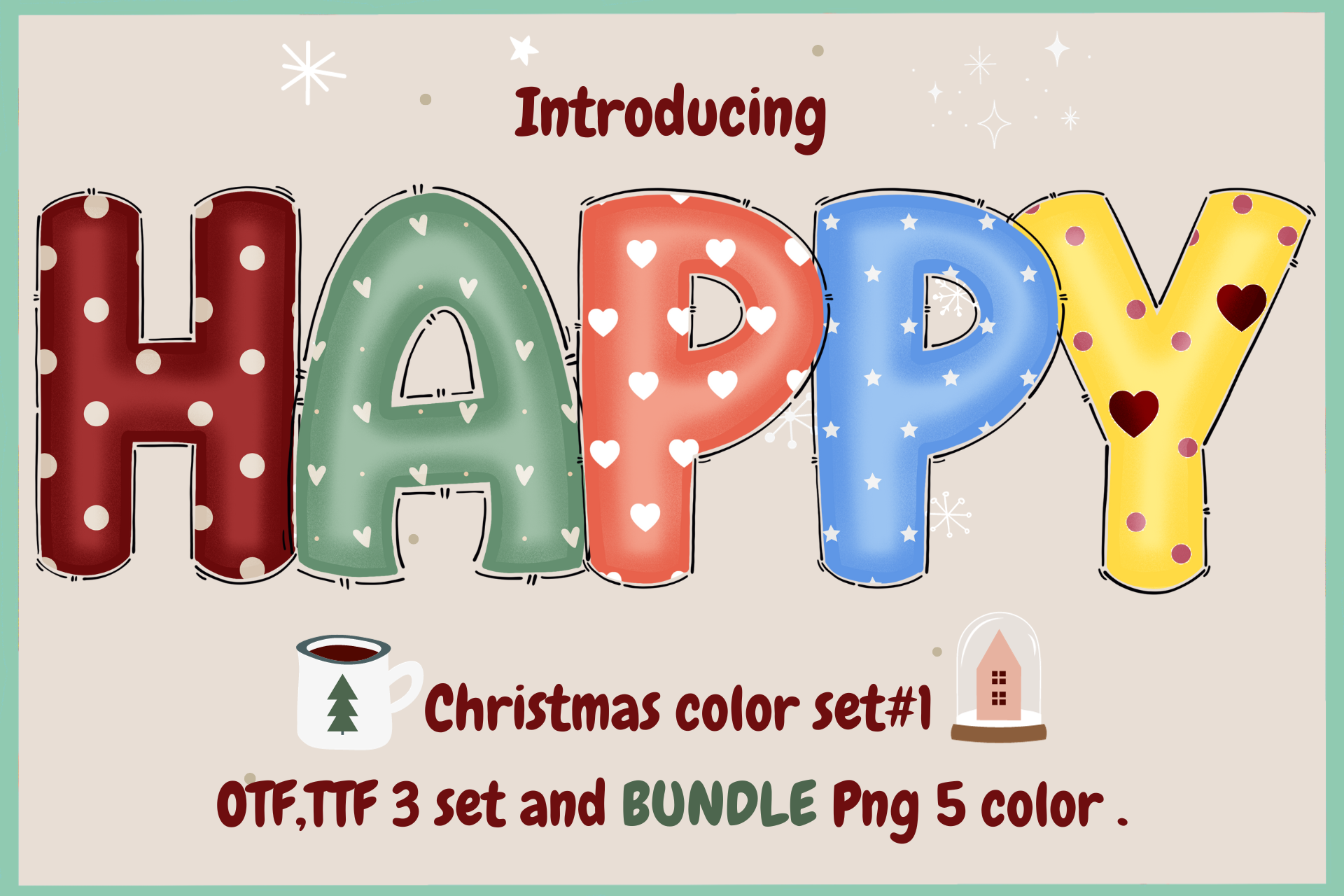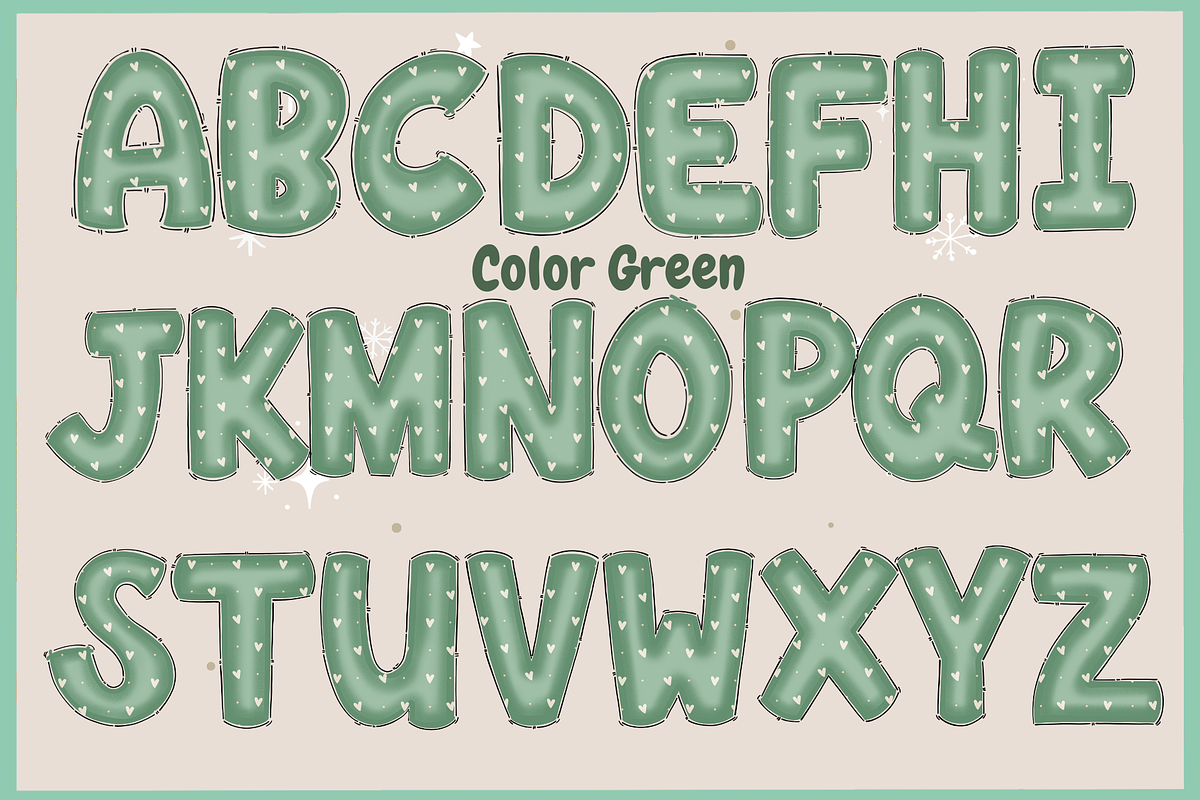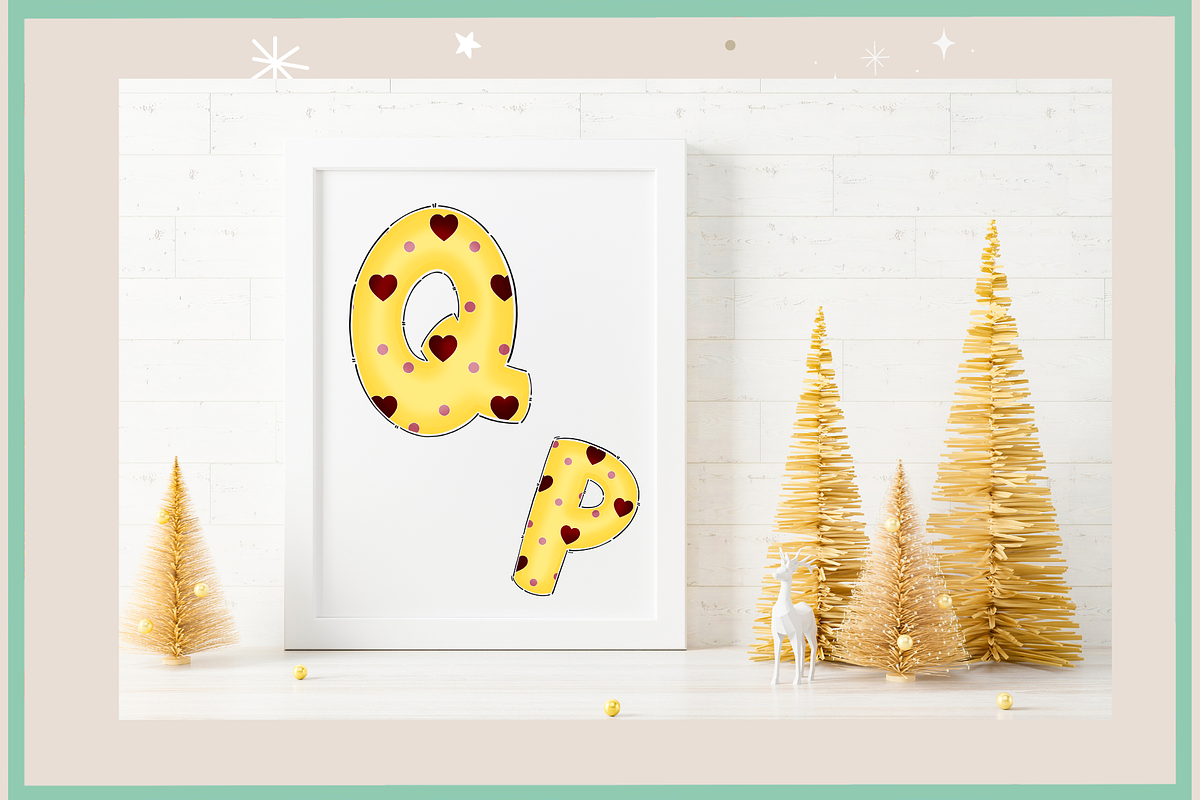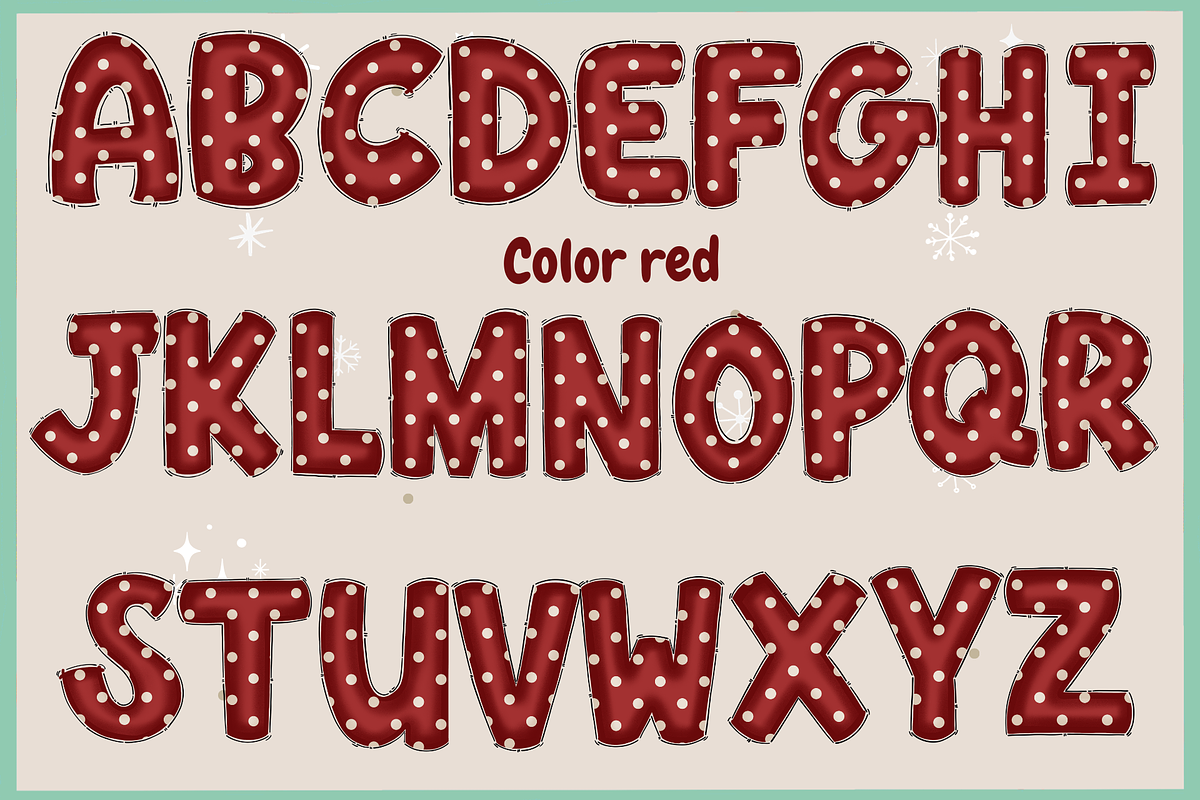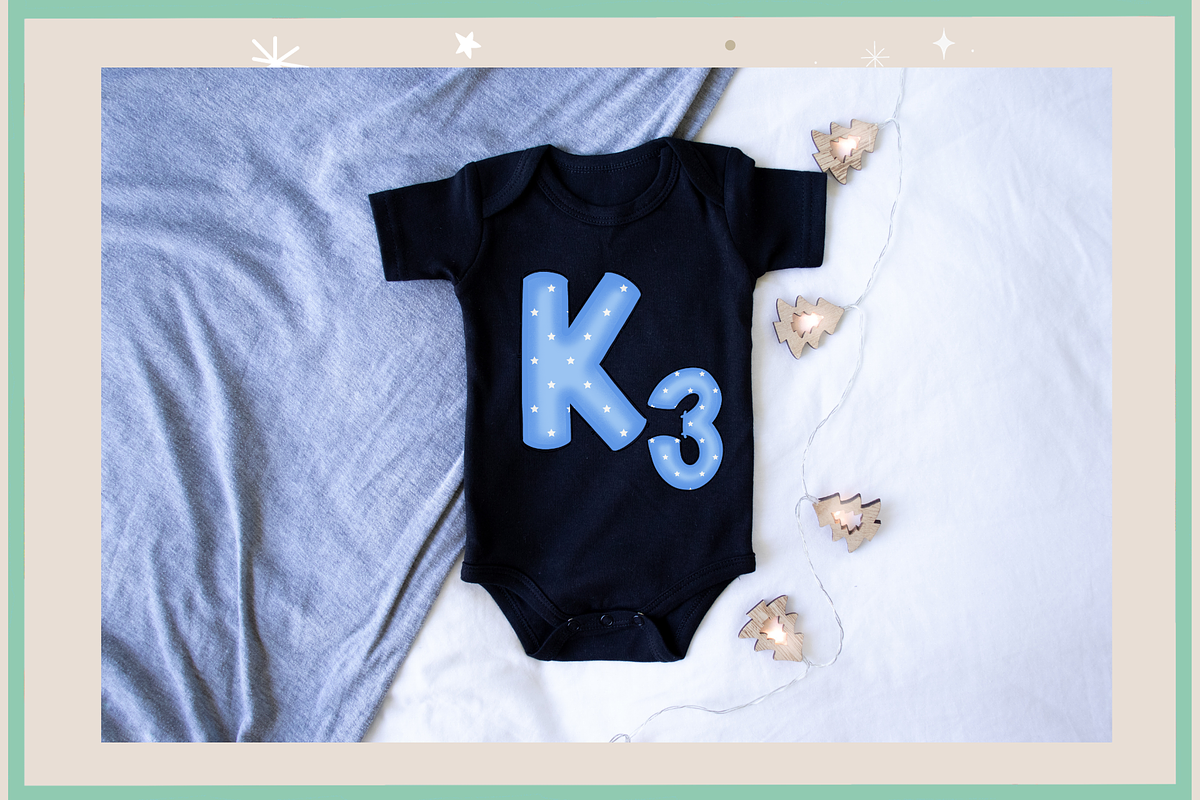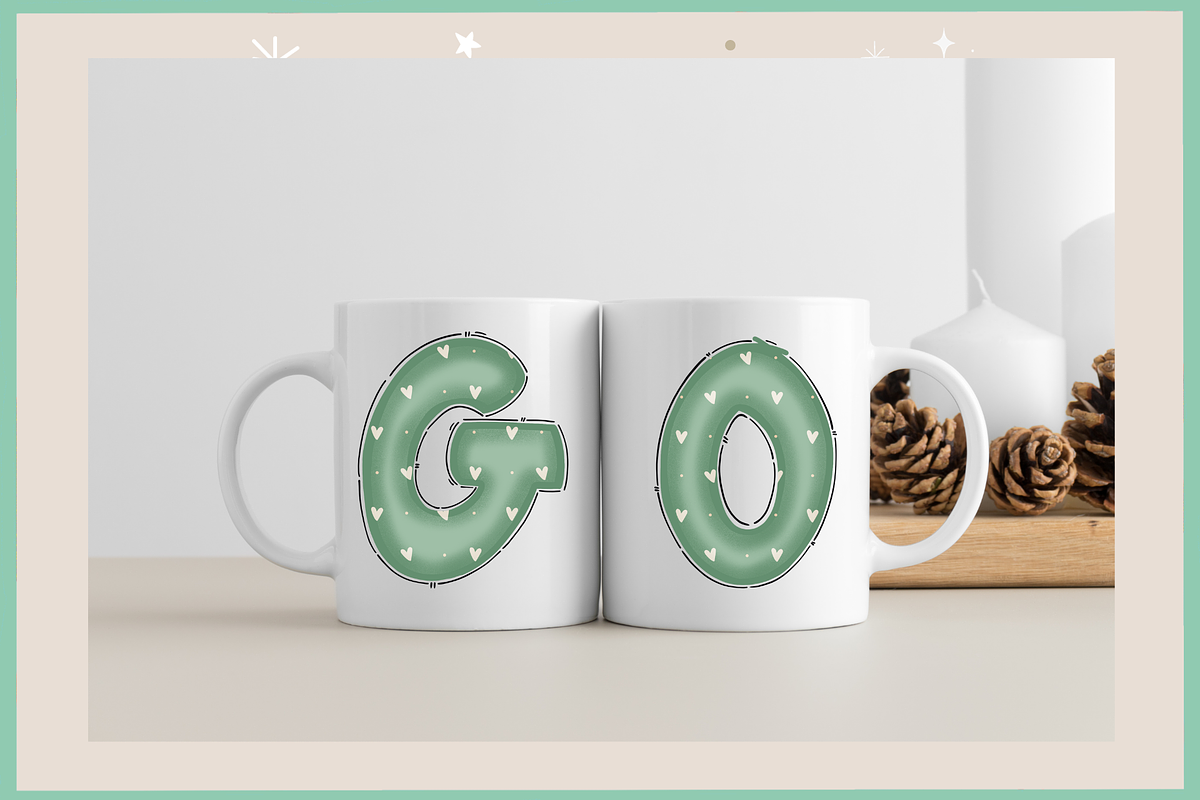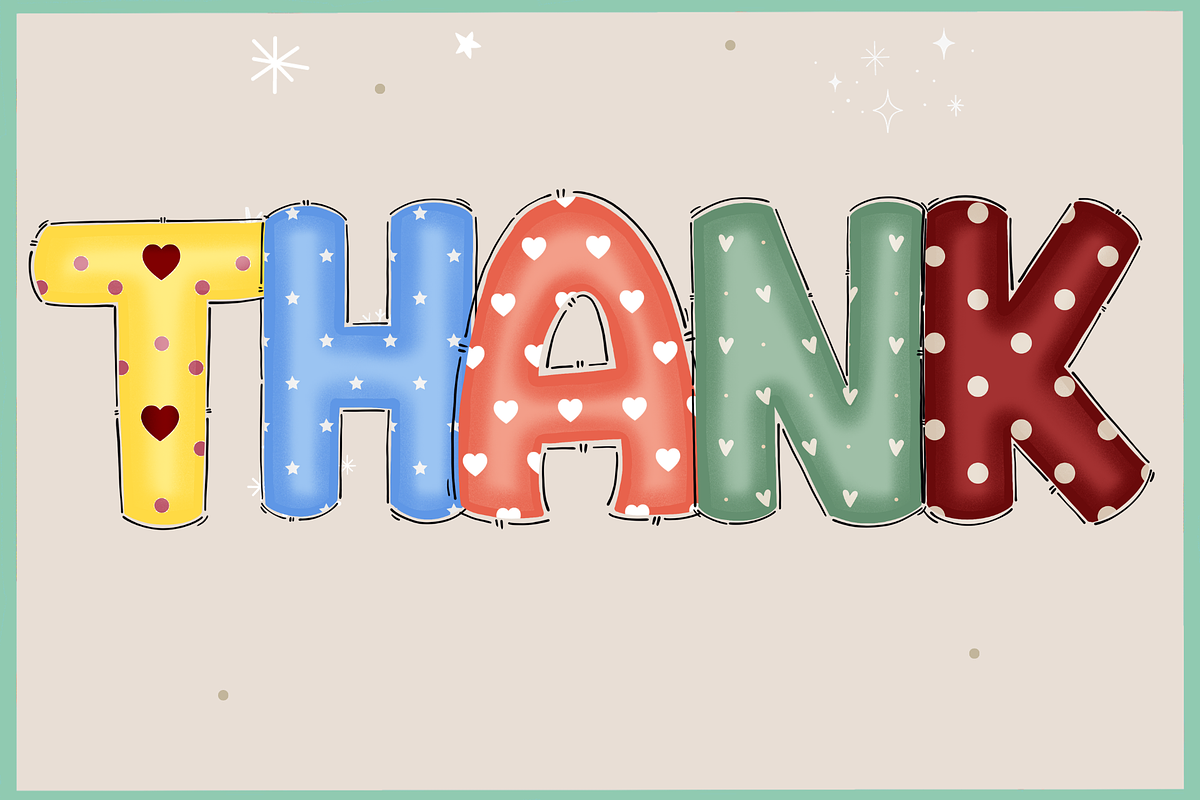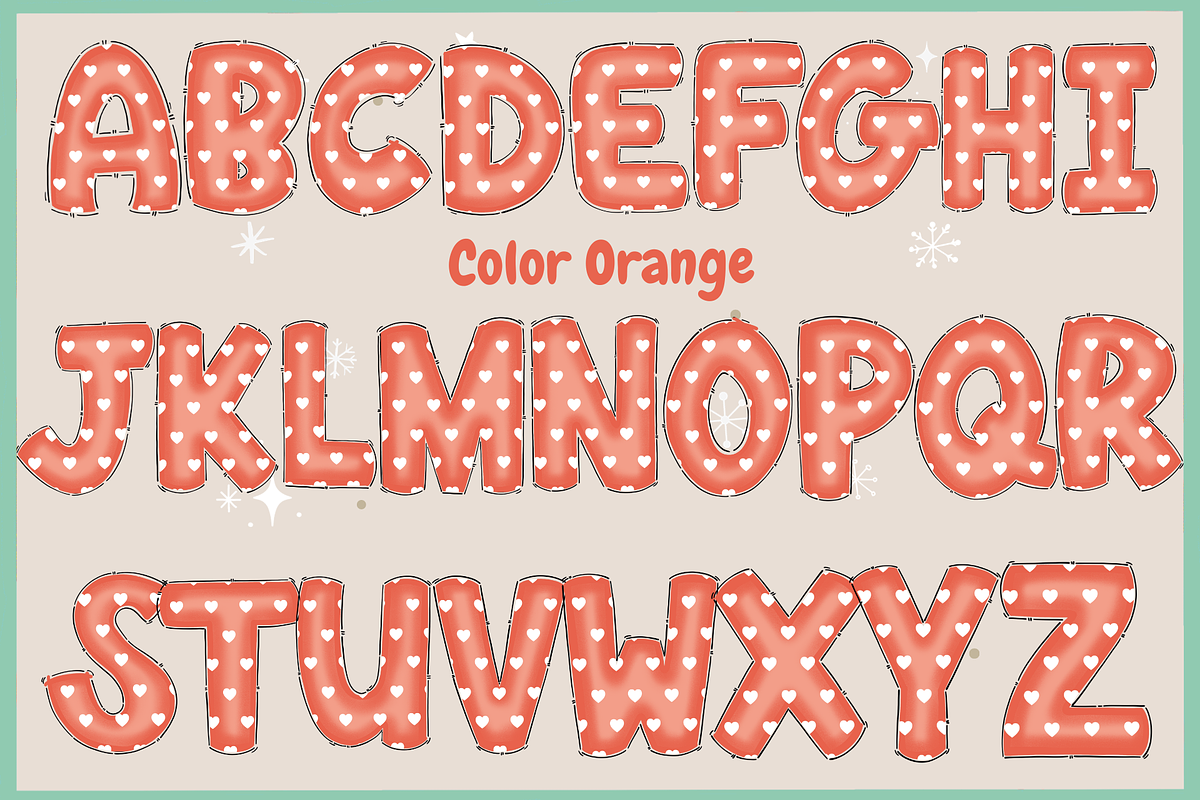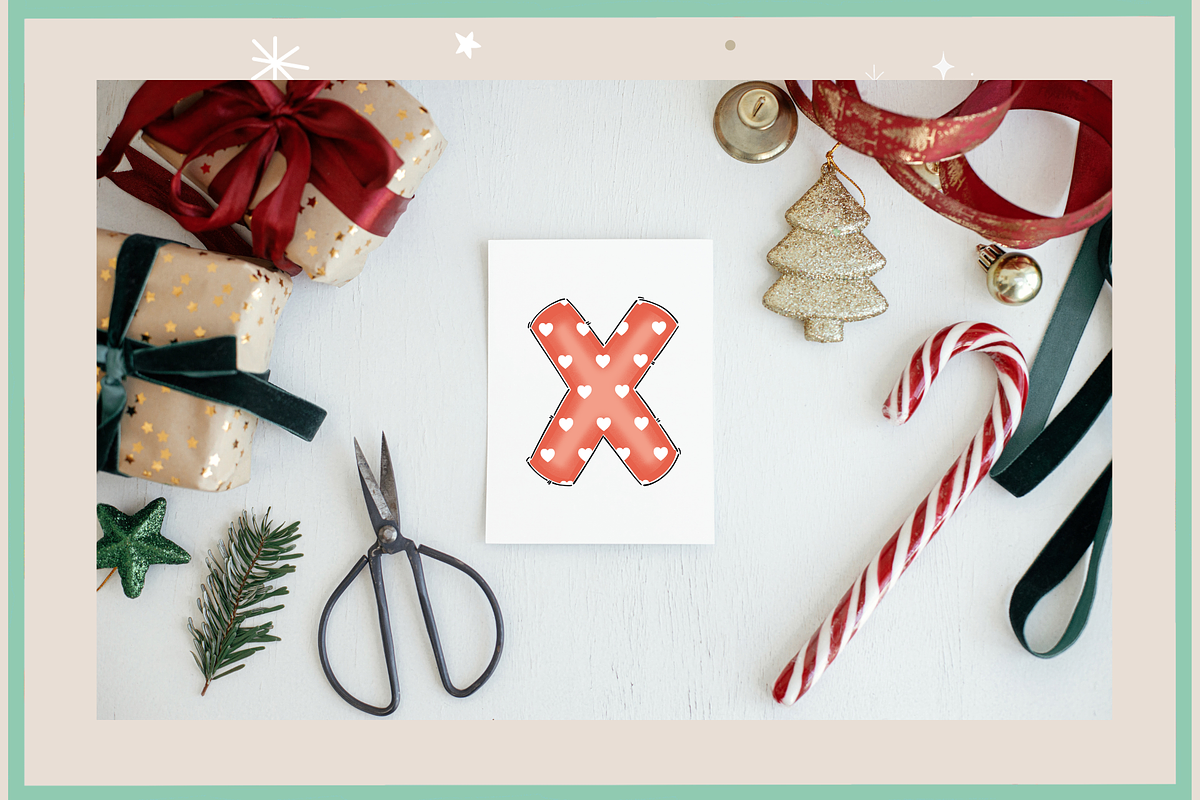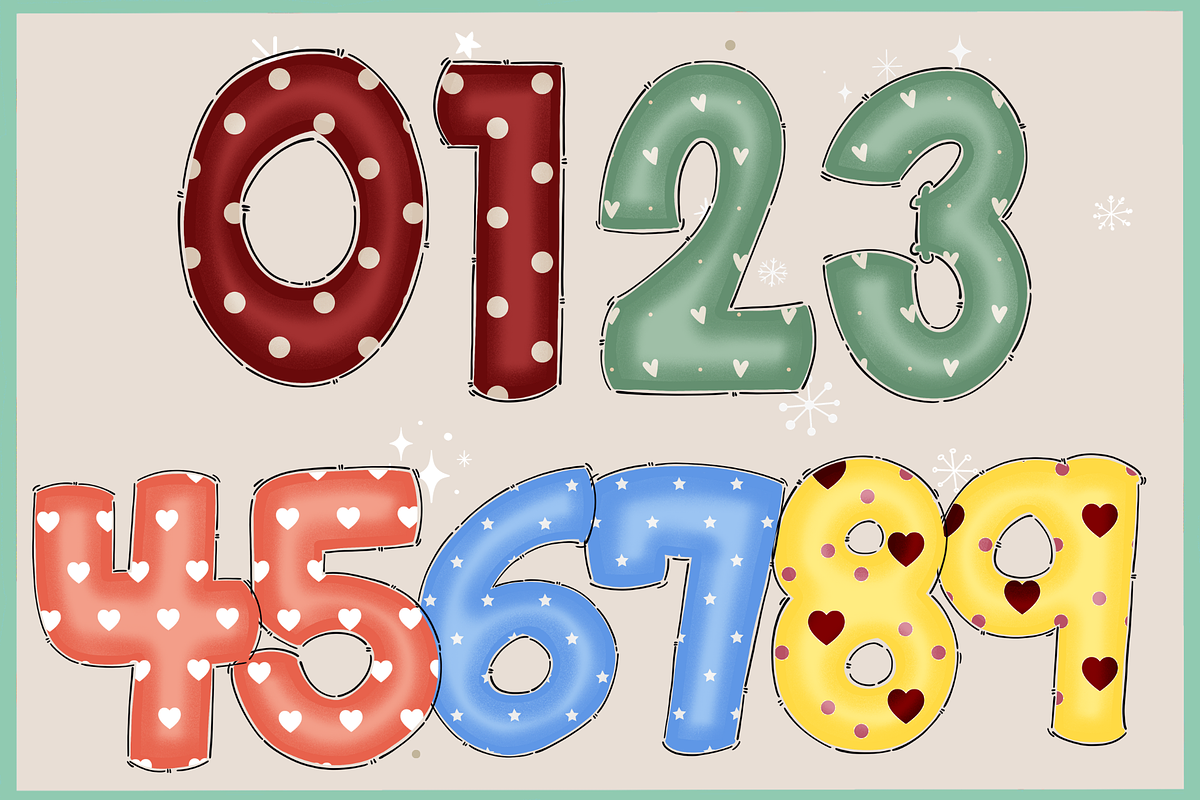
Christmas color set1-PNG fonts
Christmas color set1 Happy is a whimsical and playful Christmas font that brings a cheerful charm to your designs. This font is perfect for adding a touch of fun and Christmas joy to any project.